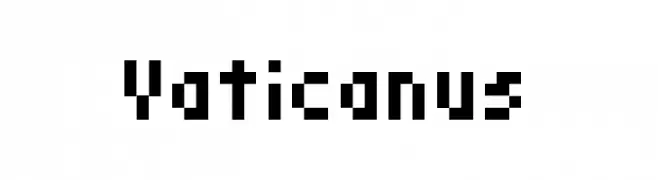
A bold, pixelated font with a retro digital aesthetic.
A bold, three-dimensional font with a playful, comic book style.
A chaotic, vine-like decorative font with jagged, intricate strokes.
A pixelated, grid-based font with a retro digital aesthetic.
A bold, geometric font with a dynamic zigzag pattern.
A bold, angular font with a gothic-inspired, geometric design.
A bold, angular italic font with high contrast and tight spacing.
A bold, slab serif font with a vintage western style.
A bold, italic, and dynamic font with a strong sense of motion.
A bold, geometric font with a modern and striking design.